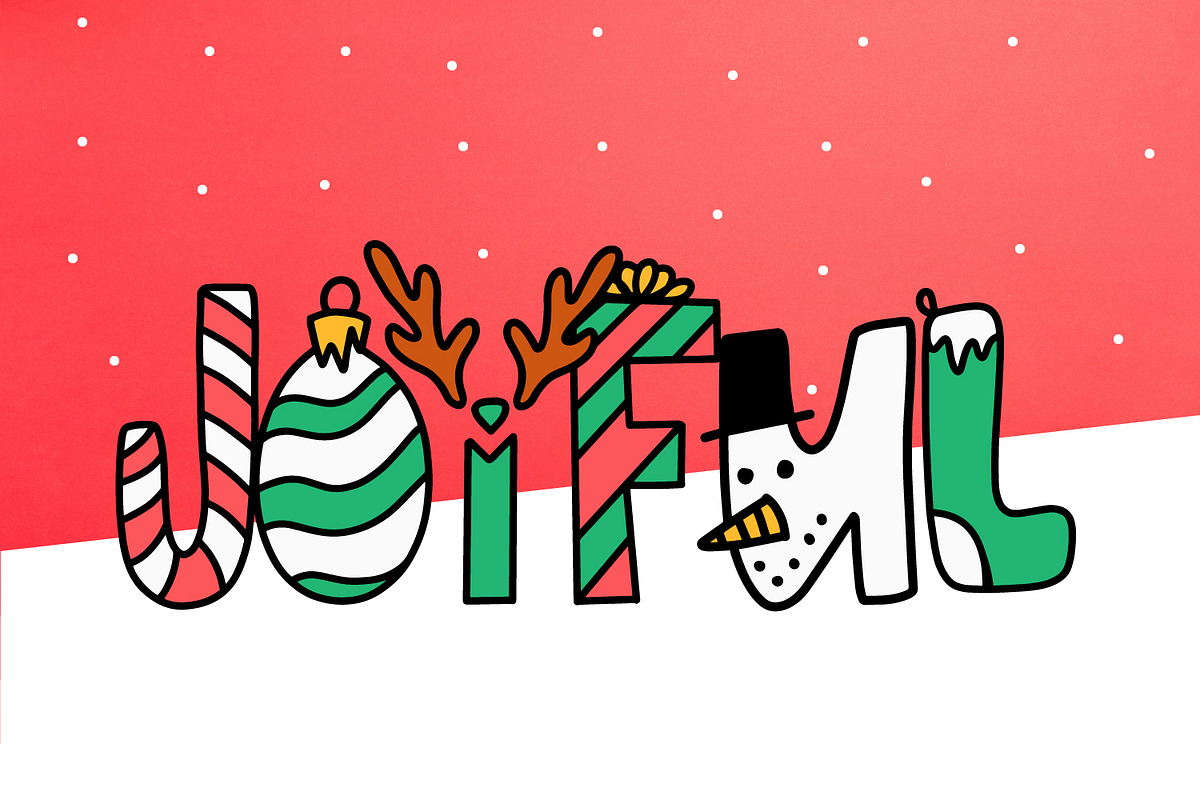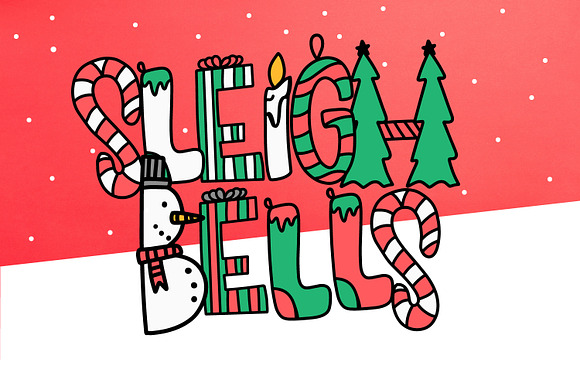
Sleigh Bells - Christmas Font
Why Sleigh Bells - Christmas Font is worth a look
Sleigh Bells - Christmas Font by CraftyLittleNodes fits naturally into Branding, posters, packaging, typography.